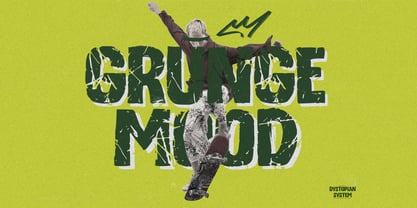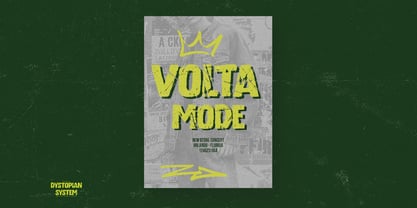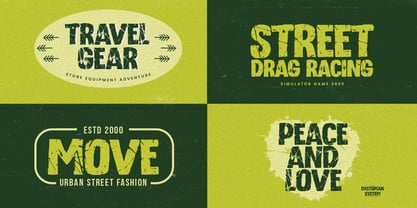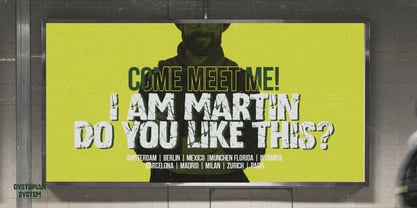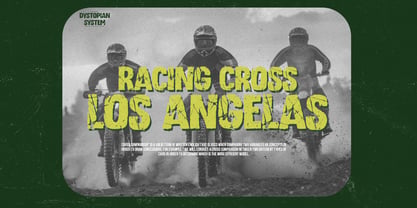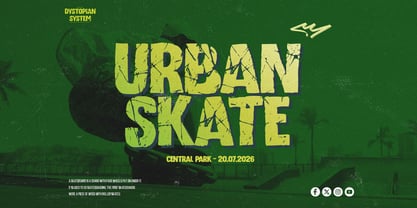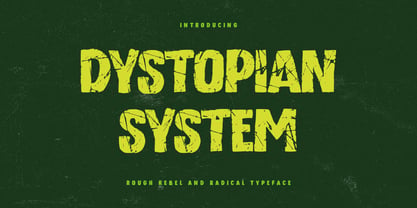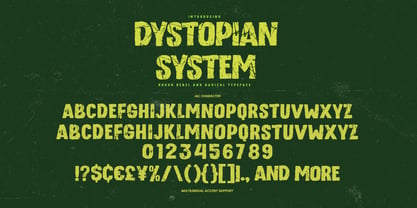
Dystopian System
by Gassstype
The Dystopian System Font Family was designed by Abdul Malik Wisnu and published by Gassstype. Dystopian System contains 1 styles. More about this family
Built with a distressed, hand-drawn character, rought display brings a rugged and rebellious energy to every letter. Its rough texture and heavy forms are designed to make your typography feel raw, expressive, and impossible to ignore. Perfect for posters, apparel, album covers, headlines, logos, packaging, and experimental graphic design. Turn up the attitude and let your type speak louder.
Designers: Abdul Malik Wisnu
Foundry: Gassstype
Based in Ambarawa - Semarang, Indonesia, and established in 2020 by Anang Fibriyanto and Malik Wisnu, Gassstype Studio is a foundry that builds tools and types, basically to show and promote his typefaces. He began designing fonts as a hobby in 2017 and specialized in kinds of brush fonts considered more useful and durable with a particular focus on creating easy and clever solutions for designers. Other than fonts, we love any form of creativity, photography, brush lettering, and more